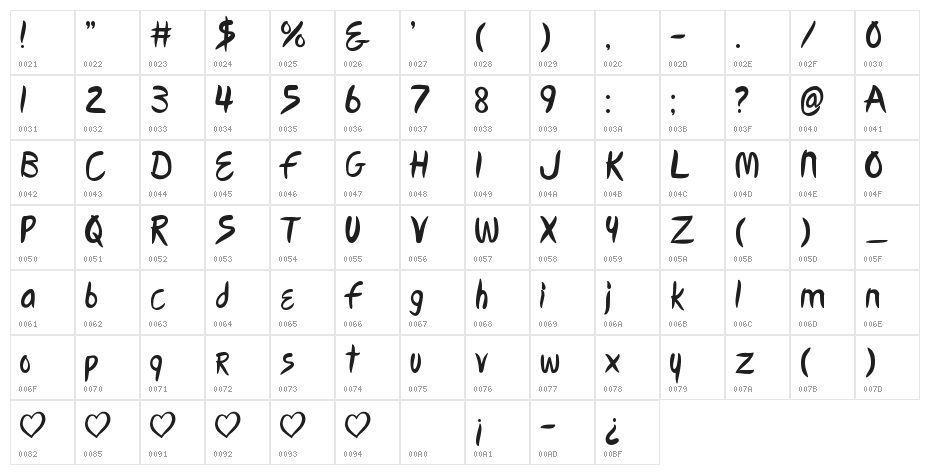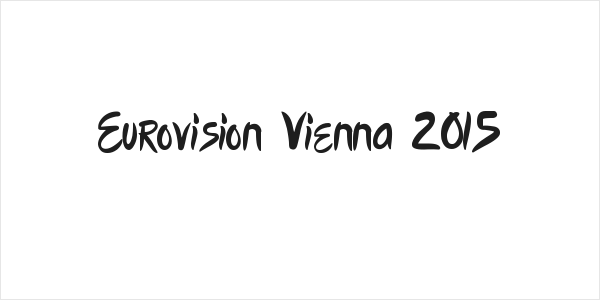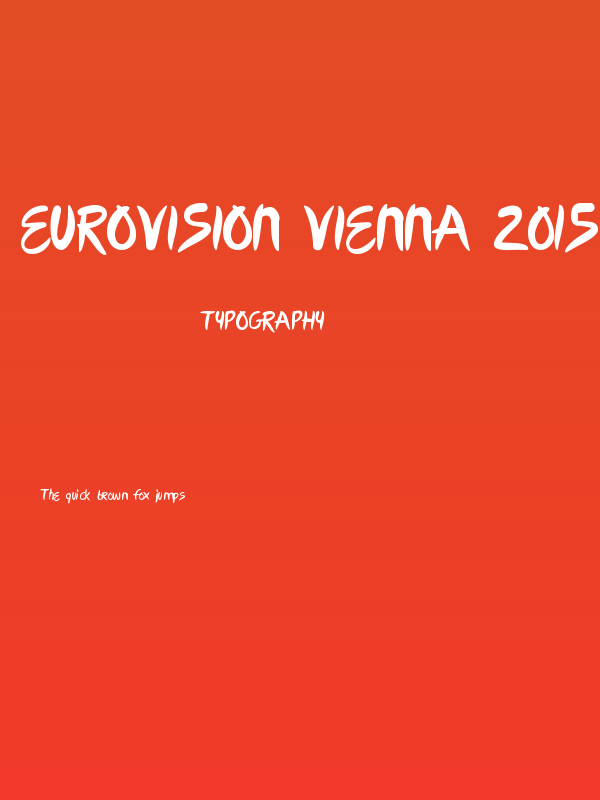
Eurovision Vienna 2015 Font
Eurovision Vienna 2015 Description
This font features a playful and dynamic handwritten style, characterized by its bold and expressive strokes. The letters are slightly slanted, giving a sense of movement and energy. Each character is uniquely crafted, with varying stroke widths that add a lively and informal touch. The uppercase and lowercase letters maintain a consistent style, while the numerals and special characters complement the overall design with their quirky and artistic flair. This font is perfect for projects that require a personal and creative touch, such as invitations, posters, and branding materials.